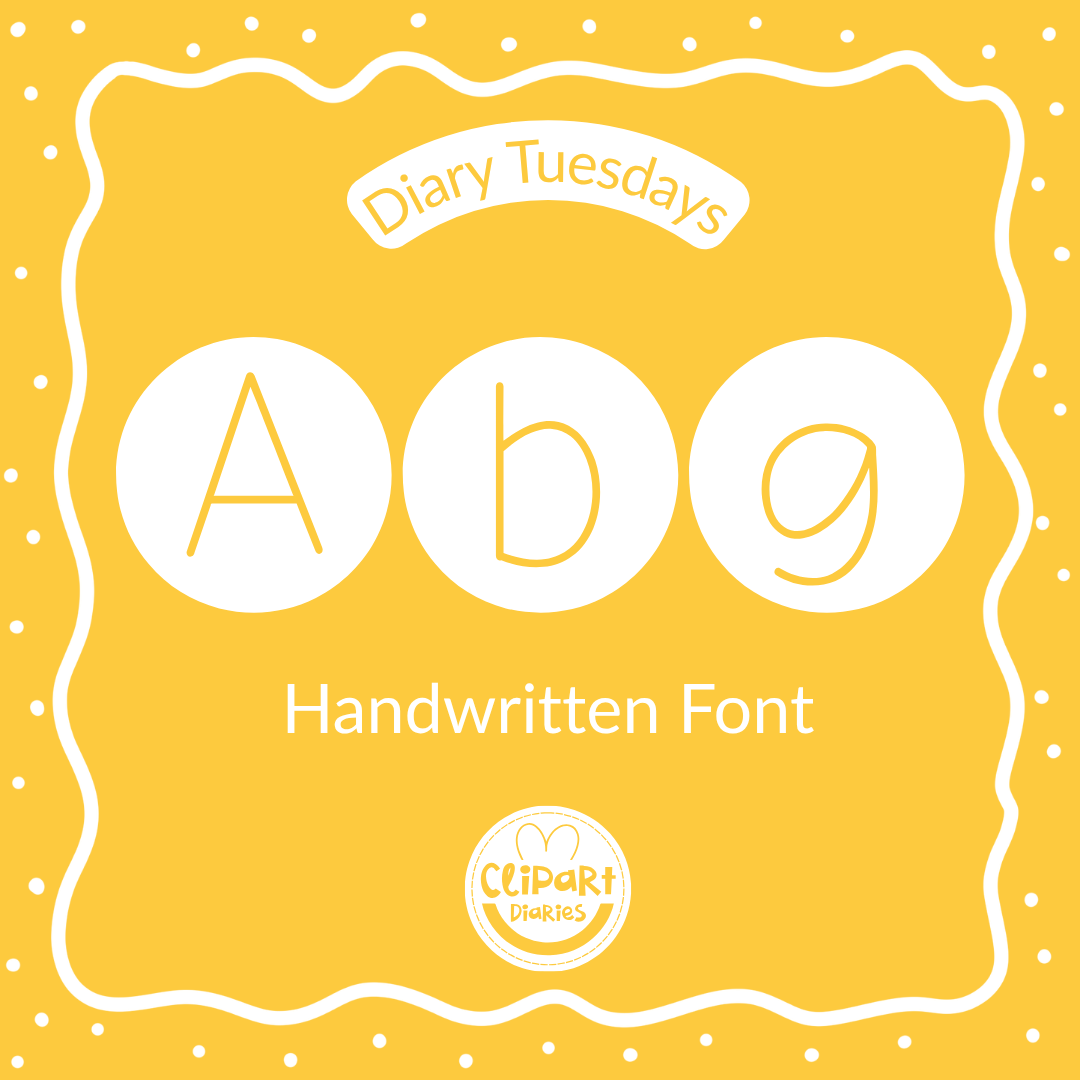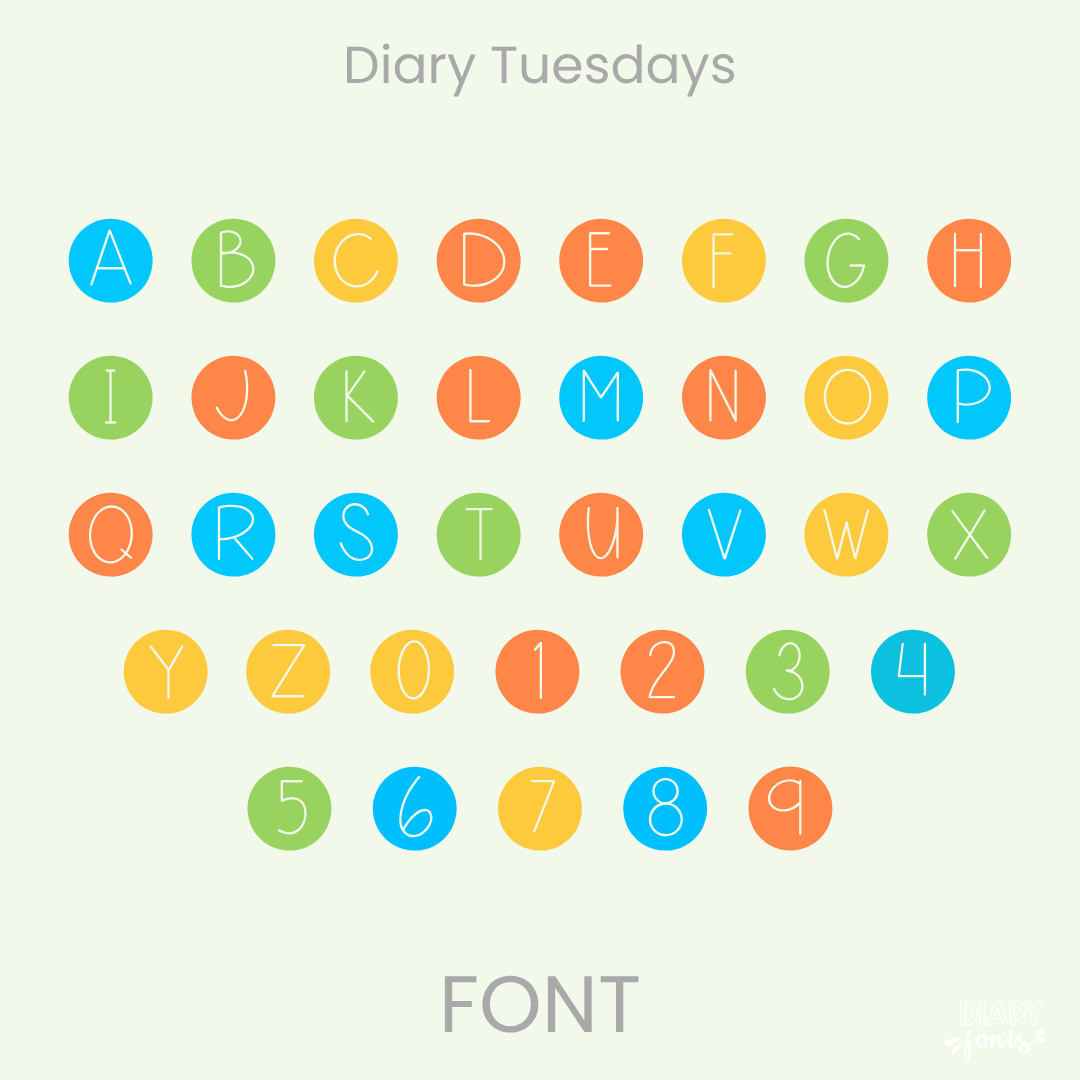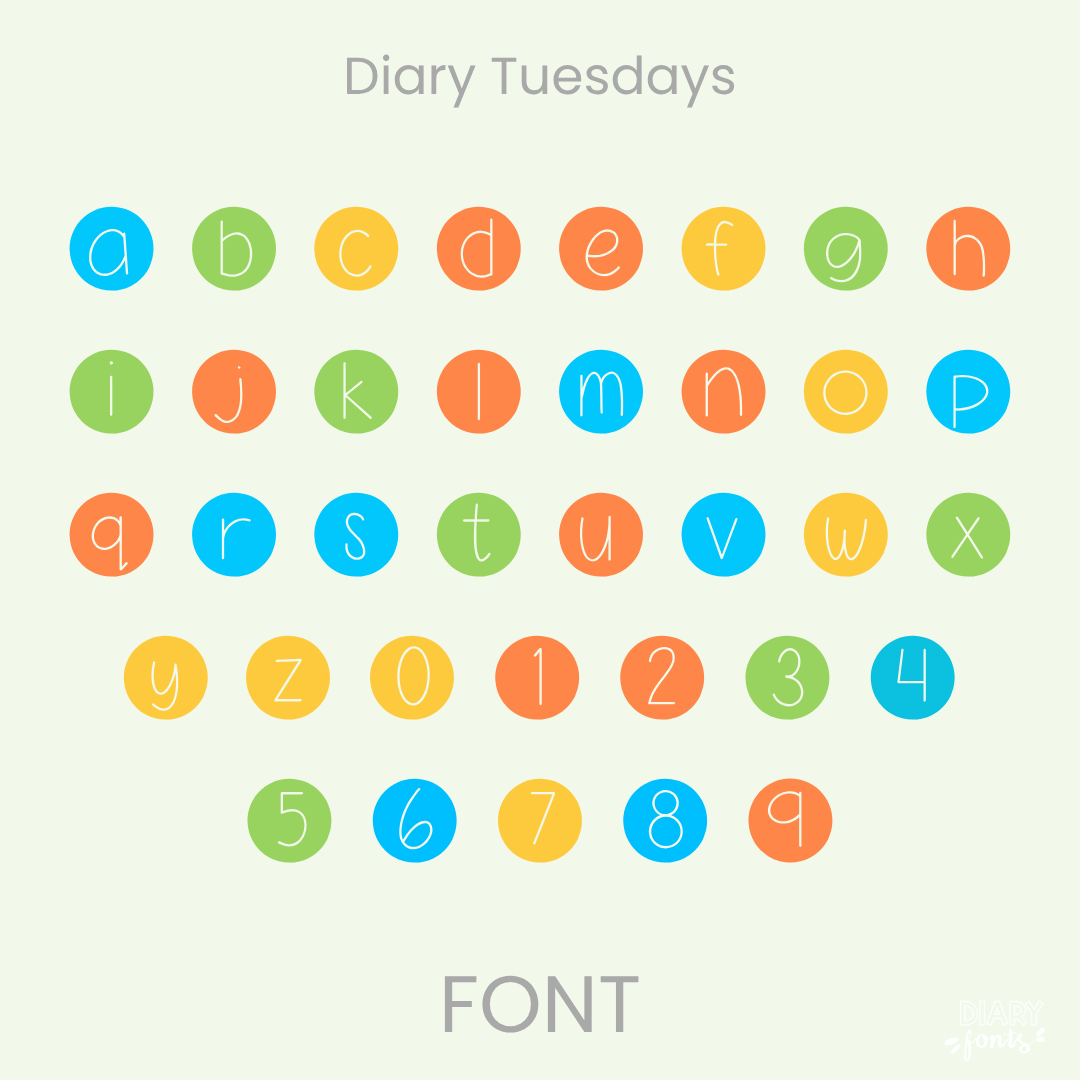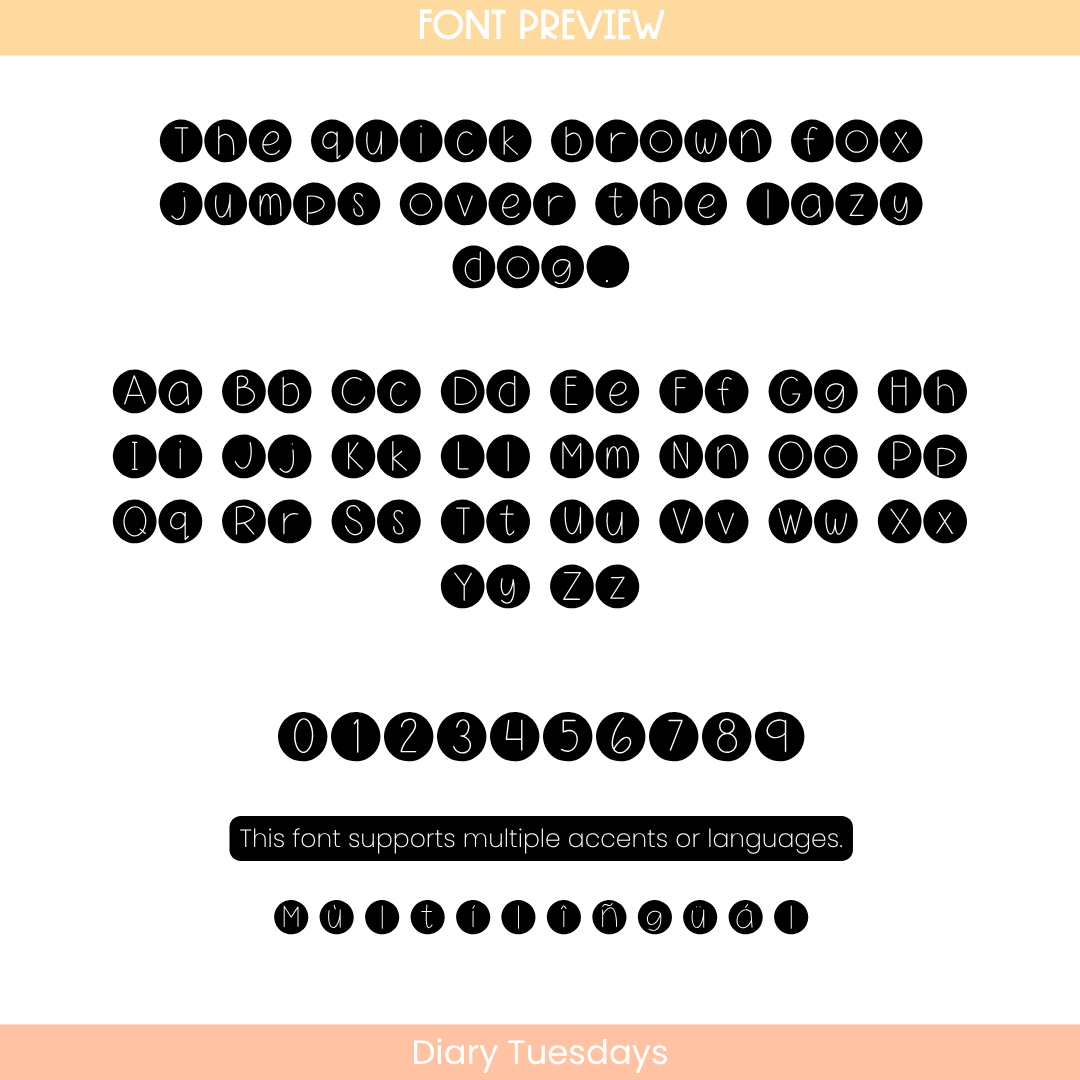
Diary Tuesdays is that sweet, whimsical circle button font and thin monoline teacher typeface you need to bring a perfectly contained, modern, and playful hand-lettered look to your classroom resources and morning slides!
If you’ve been looking for a creative display font that makes organizing your layouts a breeze, Diary Tuesdays is about to become your new absolute favorite design asset. This unique handwritten font features delicate, thin-line characters nested beautifully inside clean, solid circular frames. Because each letter is perfectly centered within its own uniform circle button, it completely eliminates background visual noise, creating an exceptionally structured and legible worksheet typography choice that your sweet students can easily read and follow.
It is an absolute dream choice for designing neat matching center labels, calendar numbers, high-impact bulletin board headers, spelling activity tokens, and clean instructional slide titles. Inside the download, you’ll get a full set of neat lowercase and uppercase letters tucked inside circular buttons, matching framed digits, and multi-accent markings for complete multilingual support. It drops right into Canva, MS Office, or Adobe on your desktop, and pairs beautifully with Procreate and GoodNotes on your iPad. Whether you’re prepping organized daily printables for your own sweet classroom or designing a fresh new commercial-use product line for your online teacher shop, this decorative circle font adds a touch of confident, warm style to your creative toolkit.